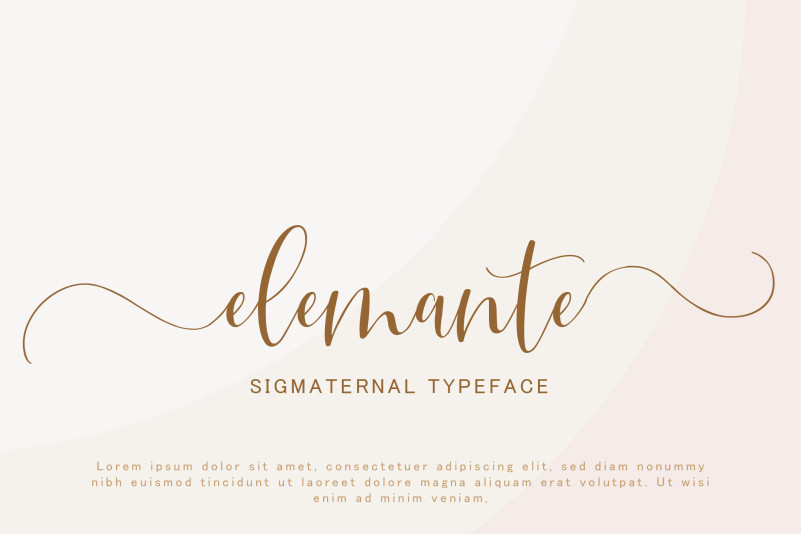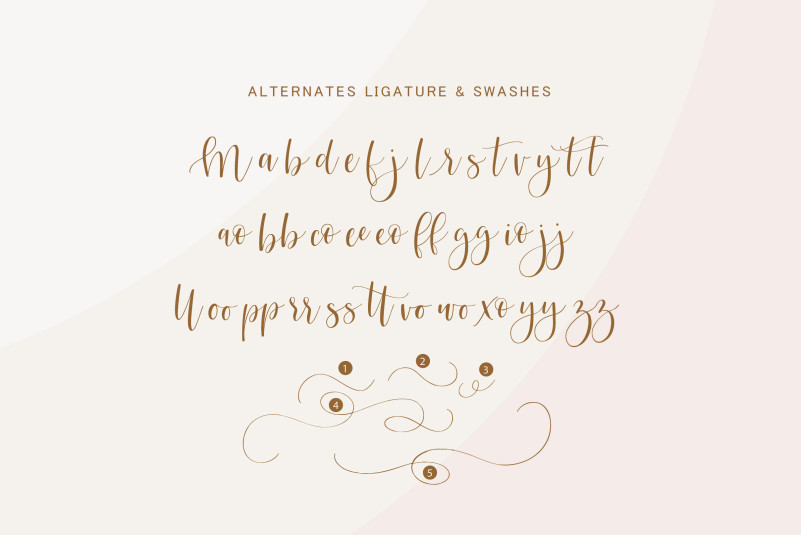
Sigmaternal Font
Sigmaternal Calligraphy Font is an elegant script font. Fall in love with its unique and timeless style and use it to create stunning designs! Add this lovely freebie to your creations to take your designs to the next level! This font is PUA encoded which means you can access all glyphs and swashes effortlessly!
– Uppercase, Lowercase, Numeral & Punctuation
– Alternate Letters, Ligature & Swash/Tail
– Multilingual & PUA Encoded